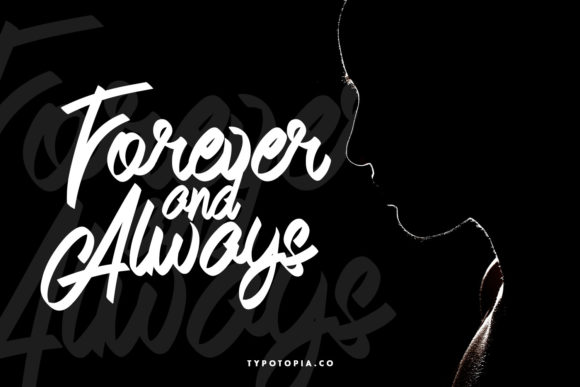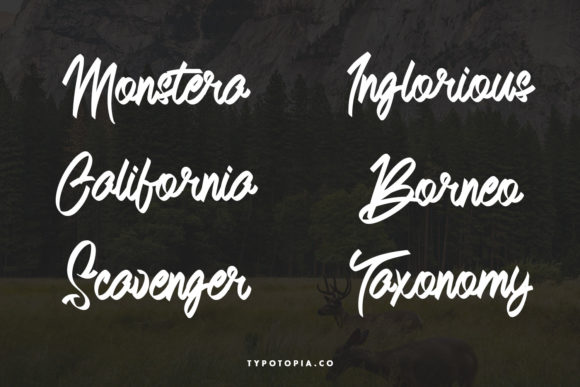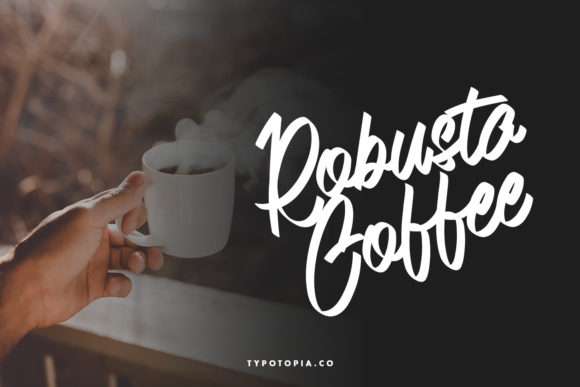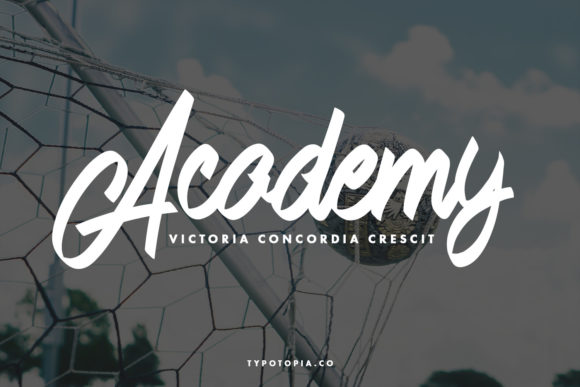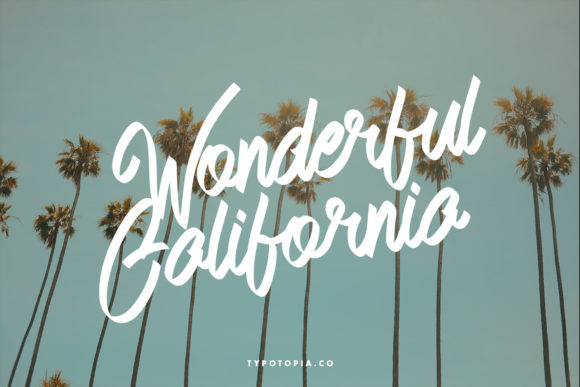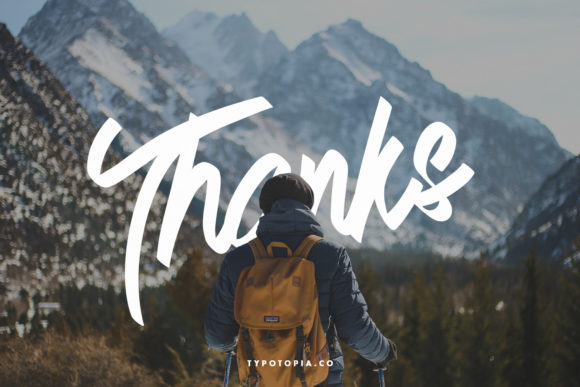
Introducing Andals Font: Elevate Your Designs with a Cursive, Chic Script
In the world of design, typography plays a crucial role in conveying the tone and aesthetic of a project. For designers and crafters looking to add a touch of elegance and approachability to their work, Andals Font is an exceptional choice. This stunning cursive script font is designed to transform your designs, making them more beautiful and engaging. With Andals, the only limit is your imagination.
What is Andals Font?
Andals Font is a uniquely lettered script font that exudes a sense of chic sophistication. Its cursive strokes are reminiscent of brush-painted letters, bringing a handcrafted feel to your digital designs. This paint-brushed font is perfect for projects that require a personal touch, making your work stand out with its distinctive charm.
Key Features of Andals Font
- Cursive and Chic: Andals Font boasts a beautiful, flowing script that adds an element of elegance to any design.
- Distinctly Lettered: Each letter is carefully crafted to ensure a unique and personalized look, setting it apart from more traditional fonts.
- Paint Brushed Effect: The font’s brush-painted strokes give it a warm, organic feel that’s perfect for creating a sense of approachability and connection with your audience.
- Versatility: Andals Font can be used across a wide range of projects, from digital content and branding to crafting and DIY tutorials.
Andals Font offers numerous benefits for designers and crafters looking to elevate their work. Here are just a few:
- Ease of Use: Despite its sophisticated look, Andals Font is easy to use, even for those with limited design experience.
- Customization: The font’s unique style allows for endless customization possibilities, enabling you to tailor your designs to fit your specific needs.
- Time-Saving: With Andals Font, you can quickly create stunning designs without spending hours on typography, allowing you to focus on other aspects of your project.
- Consistency: The font’s consistent style ensures that your designs look cohesive and professional, enhancing your brand’s overall image.